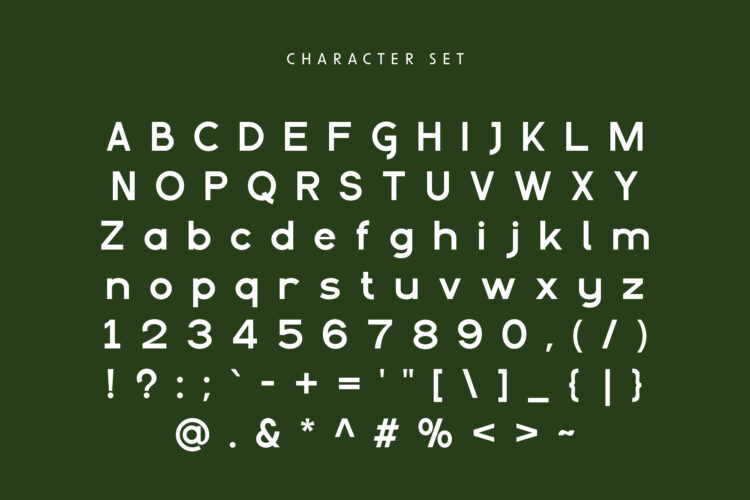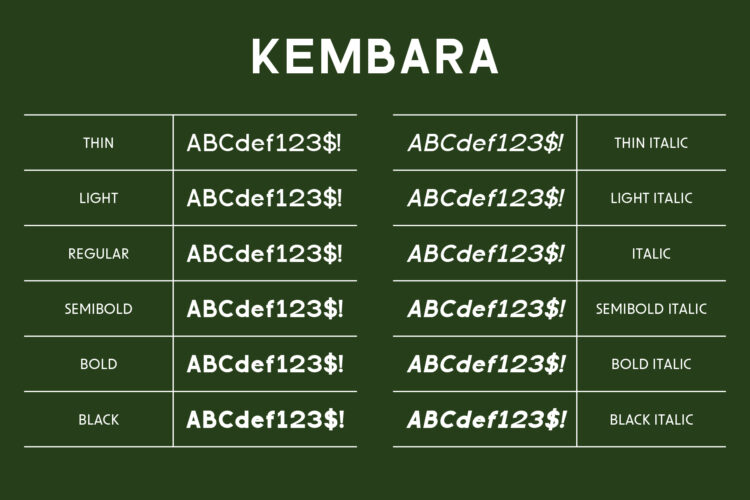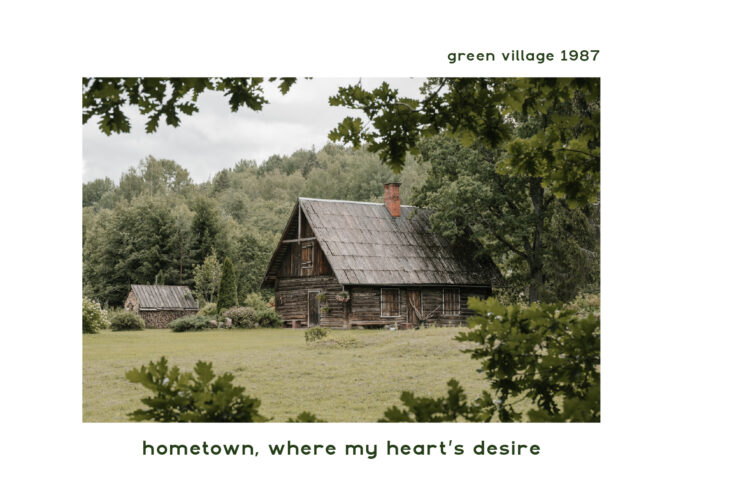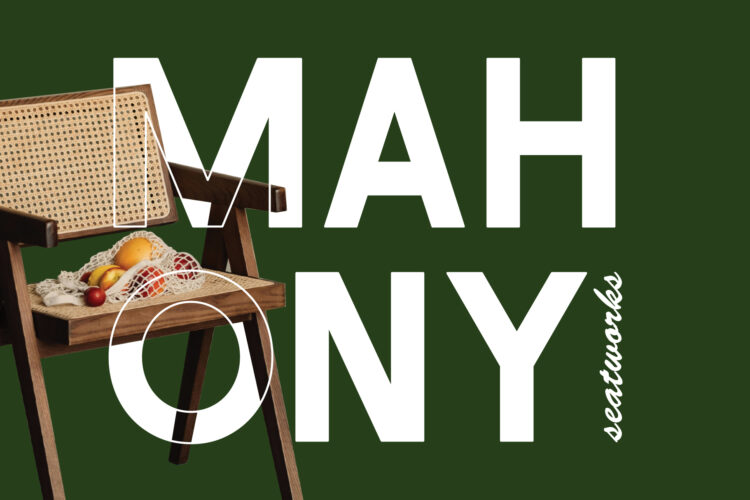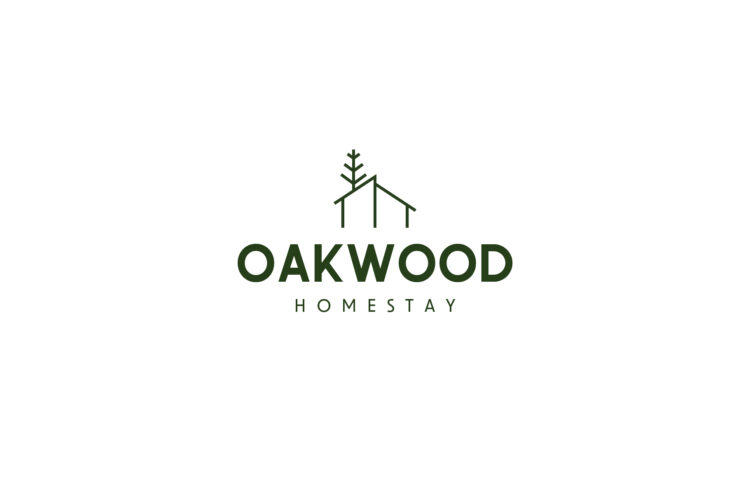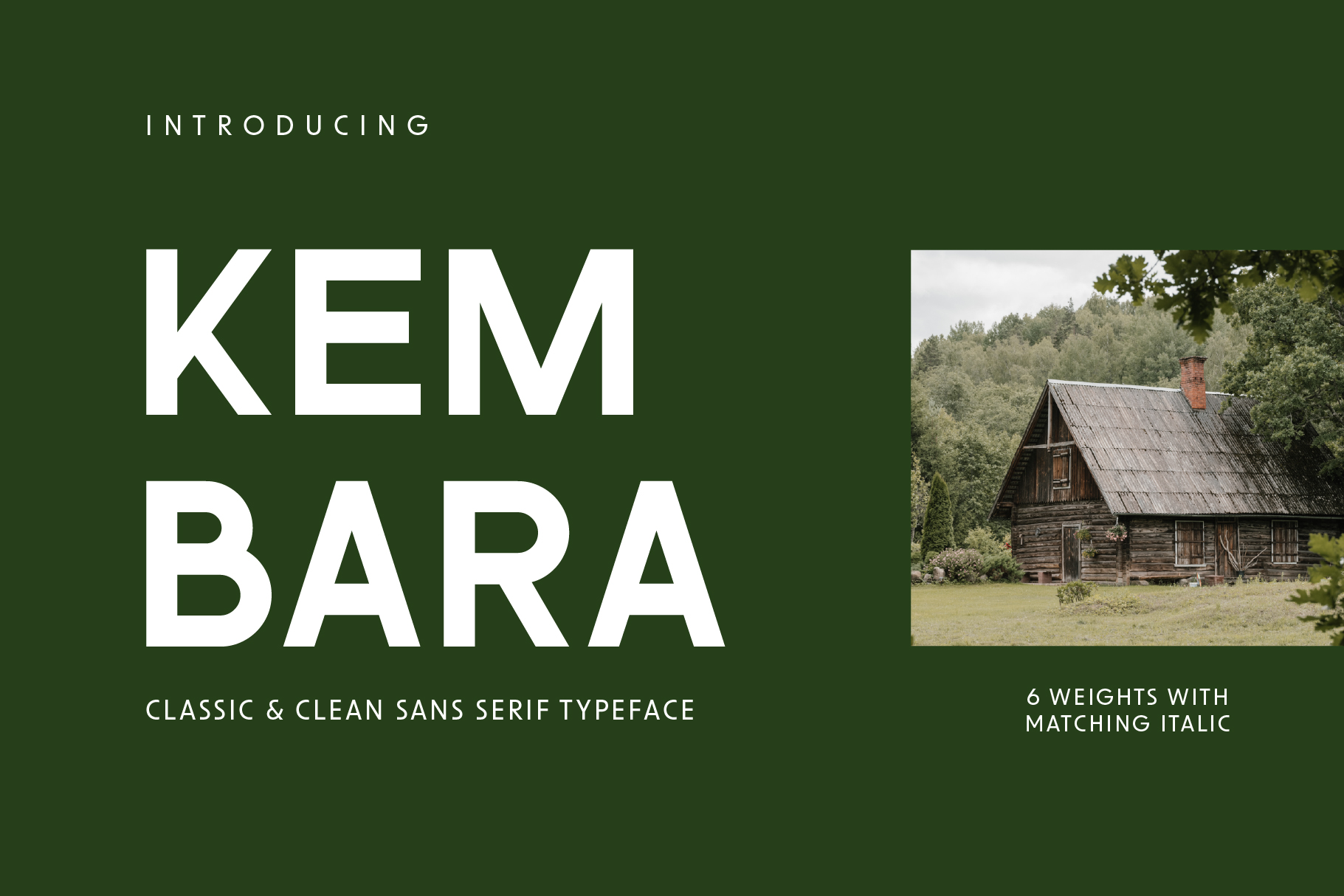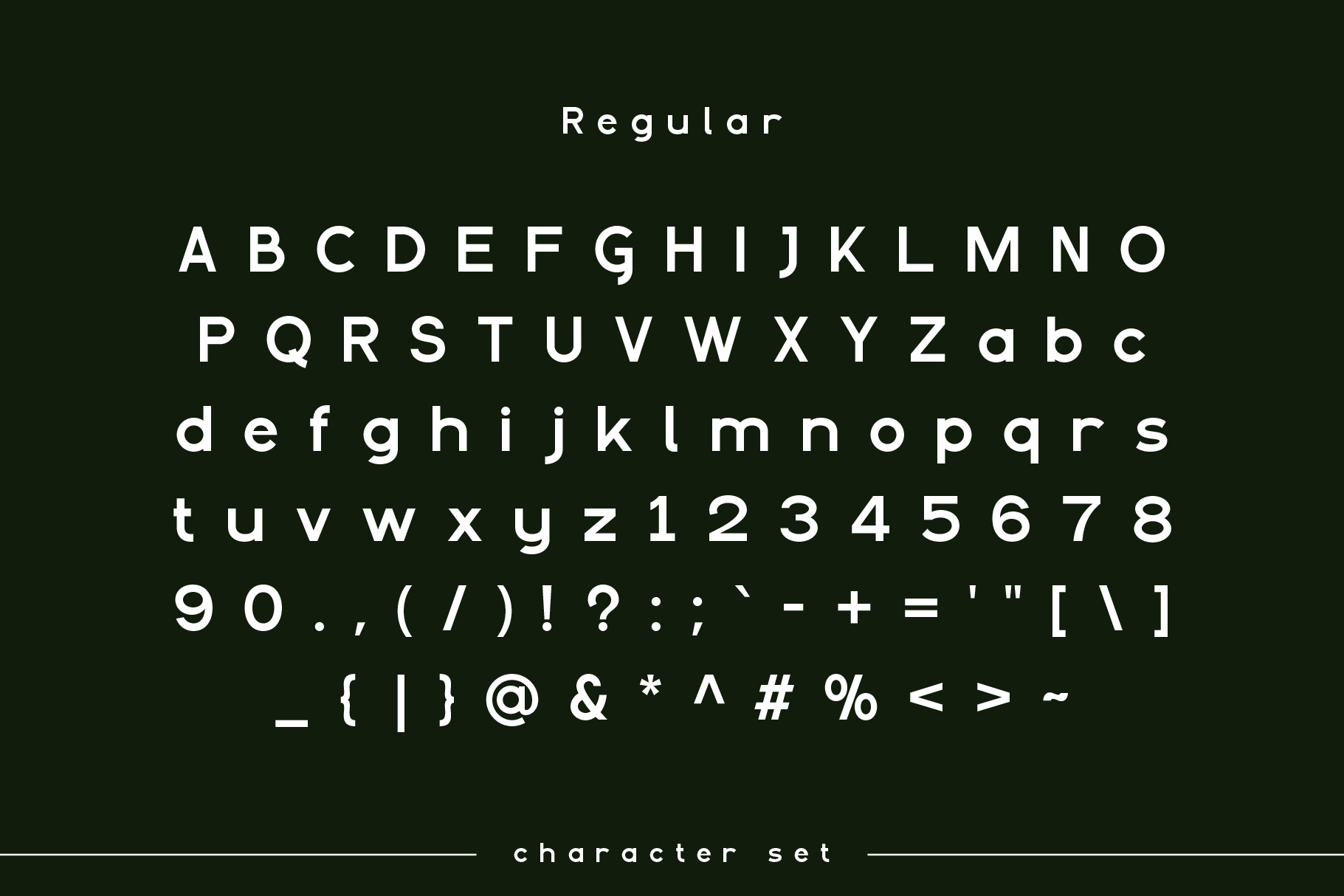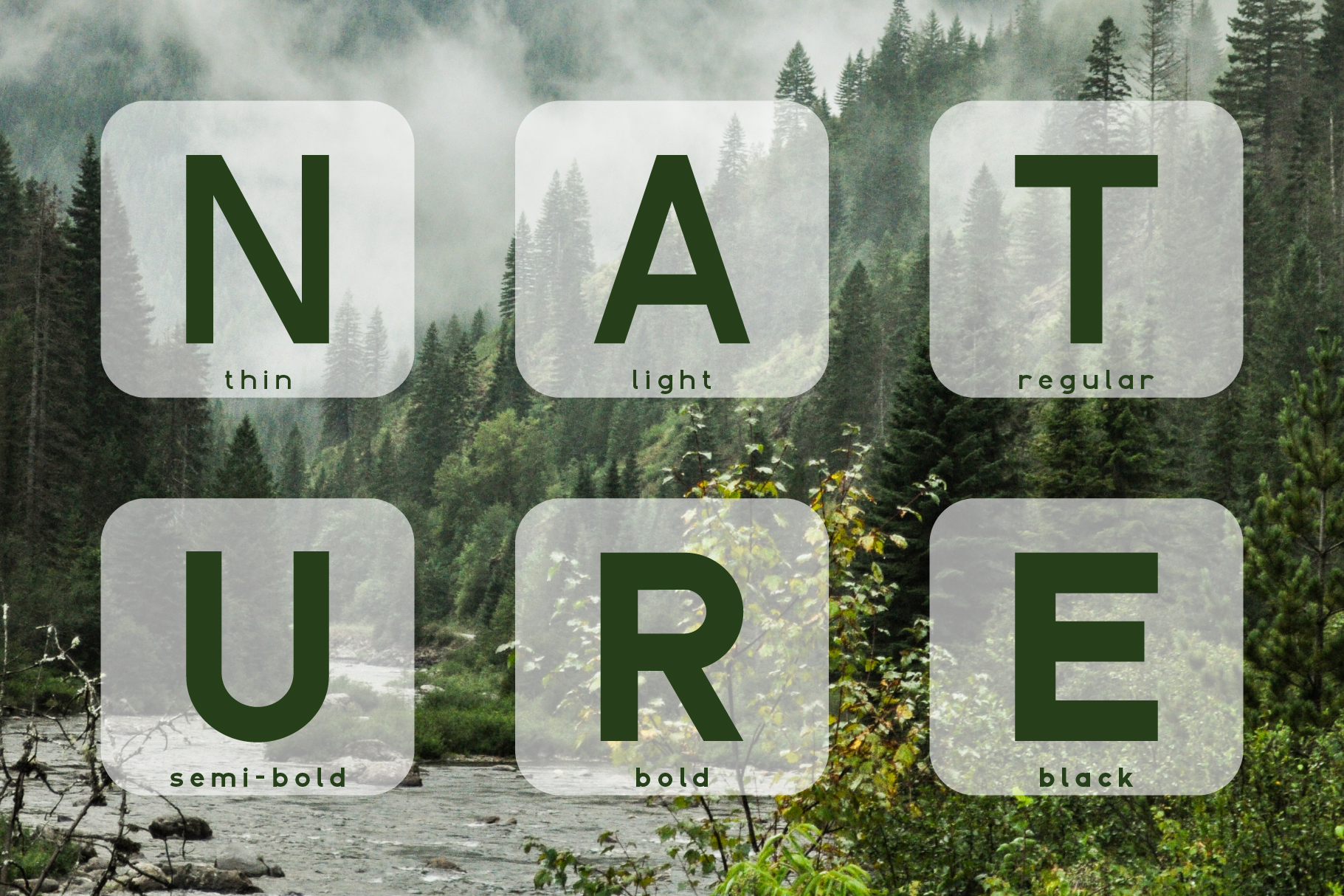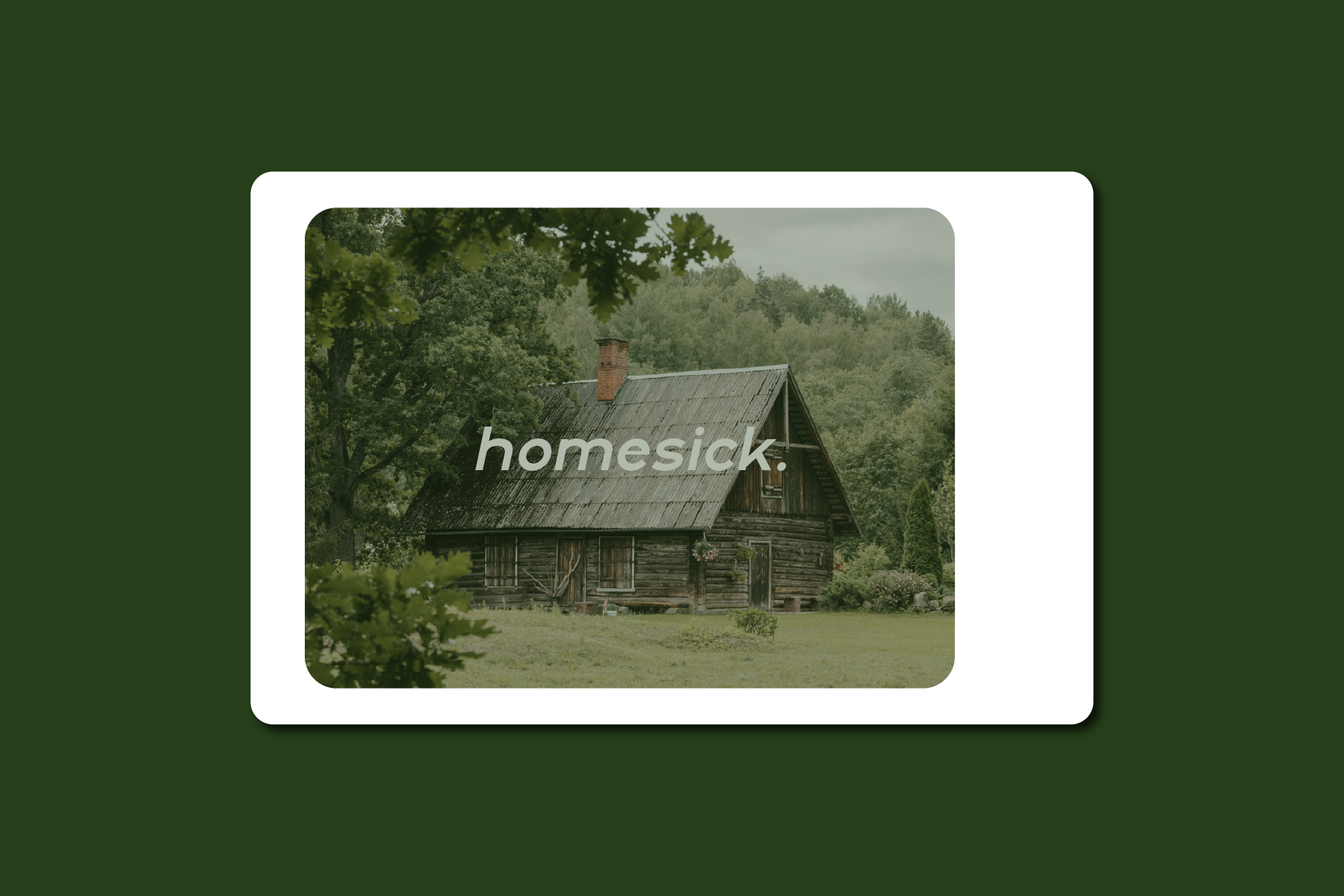
Kembara Font is a very perfect choice for your logos, headlines, and body text alike. With clean line and strong characters, you can easily create a cohesive look for your brand or project. Plus, its simplicity makes it easy to read and comprehend, so you can be sure your message is getting across loud and clear.
Kembara Font comes with 6 weights and includes with matching italic
• Thin
• Light
• Regular
• Semi-Bold
• Bold
• Black
Kembara – Sans Serif Font